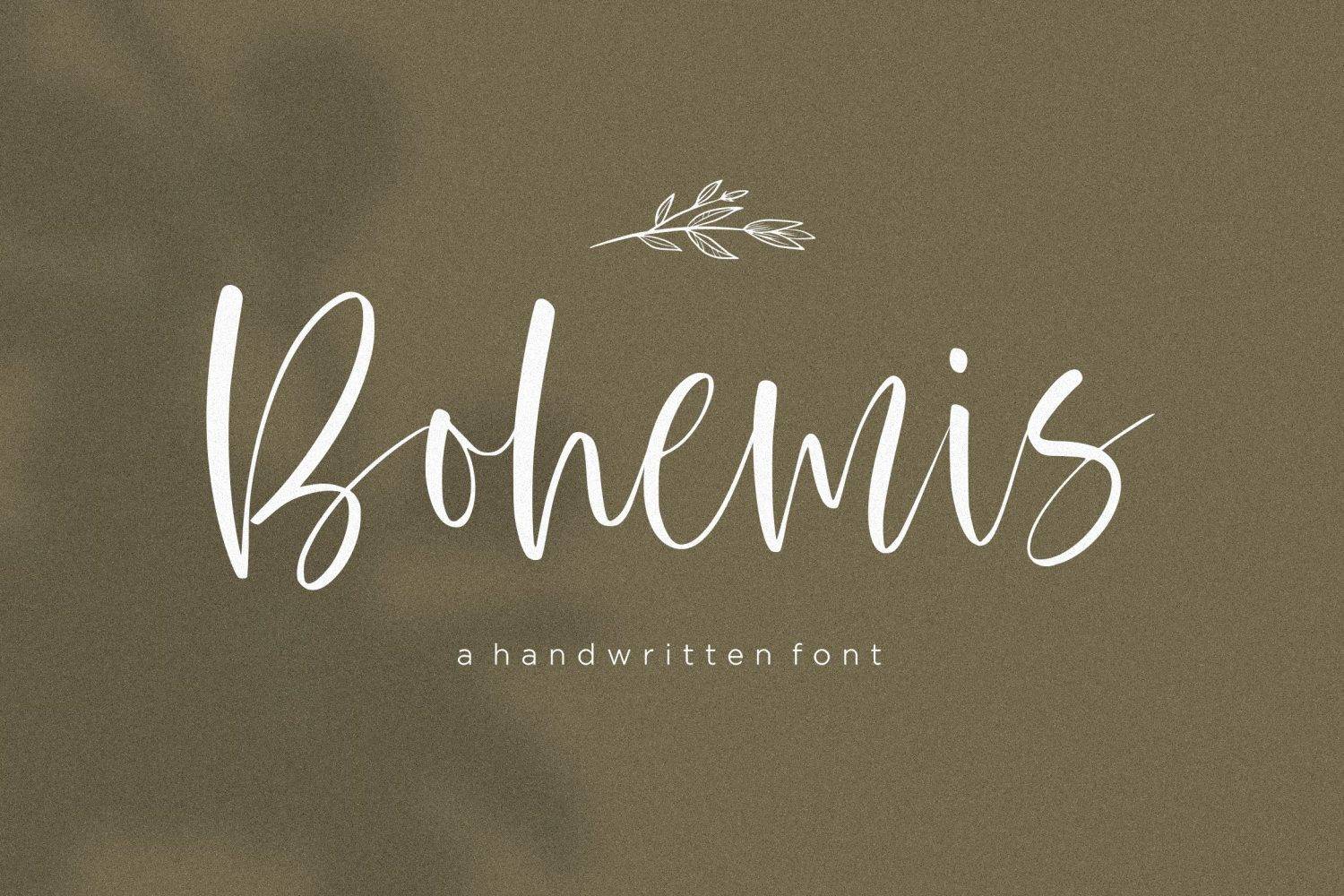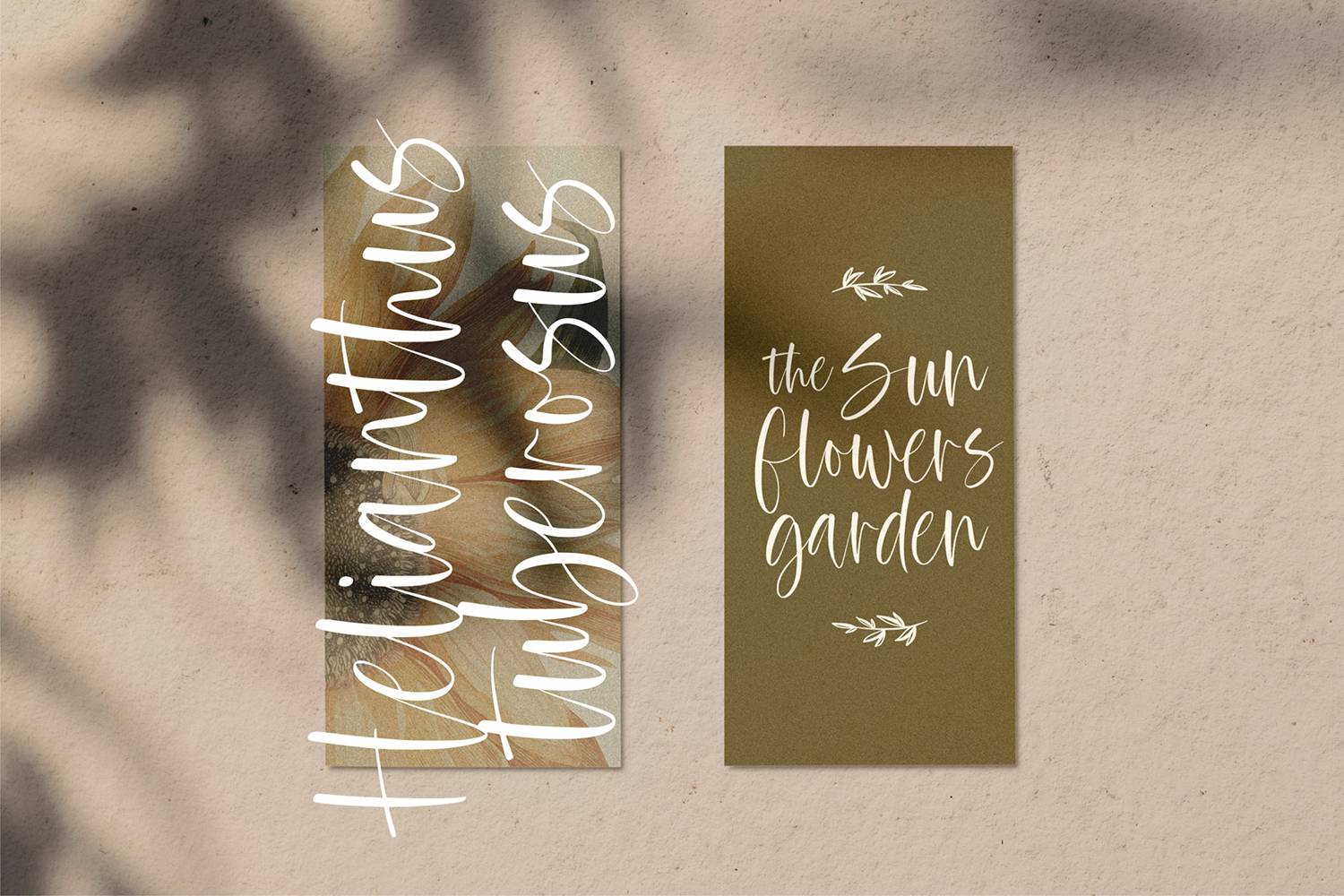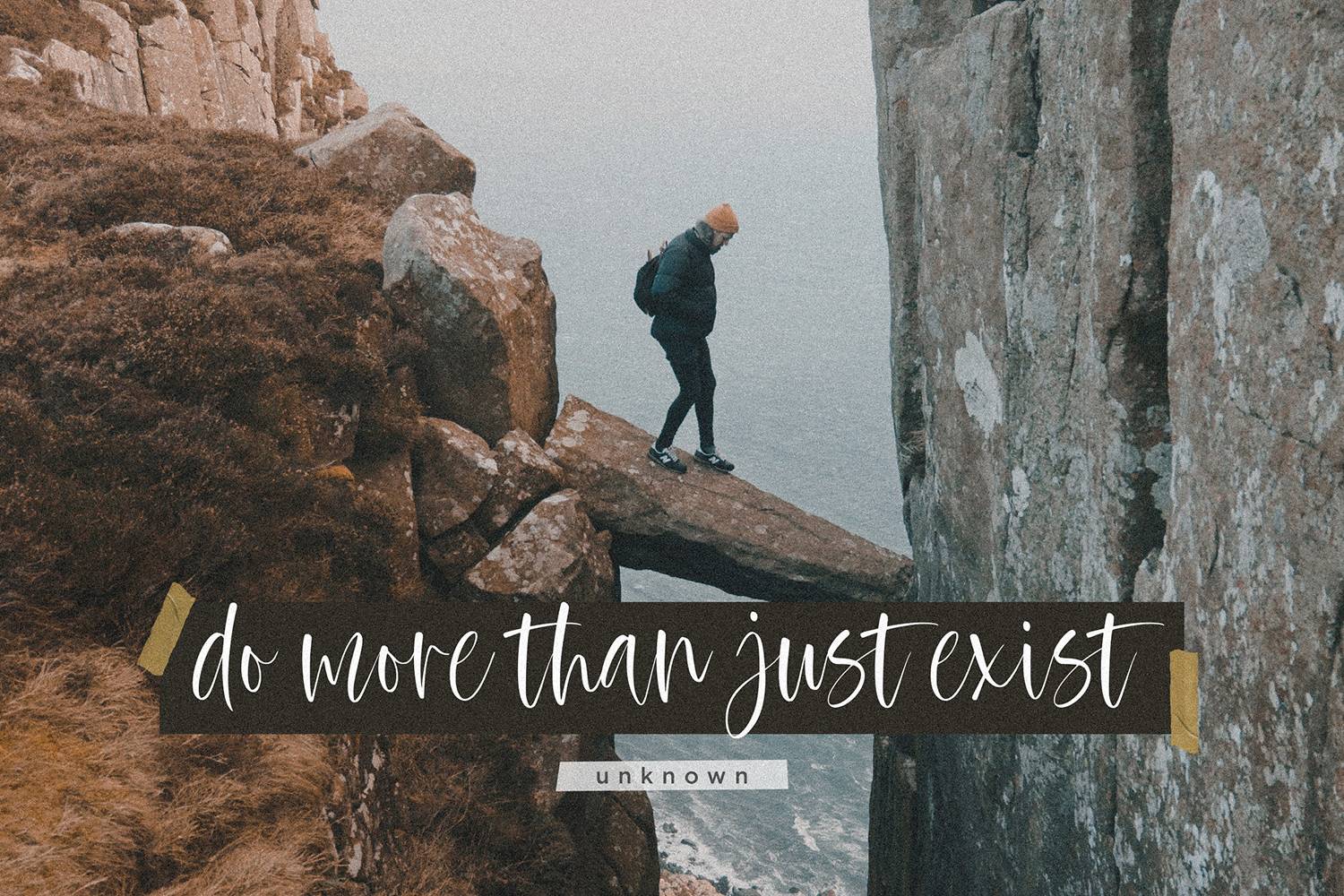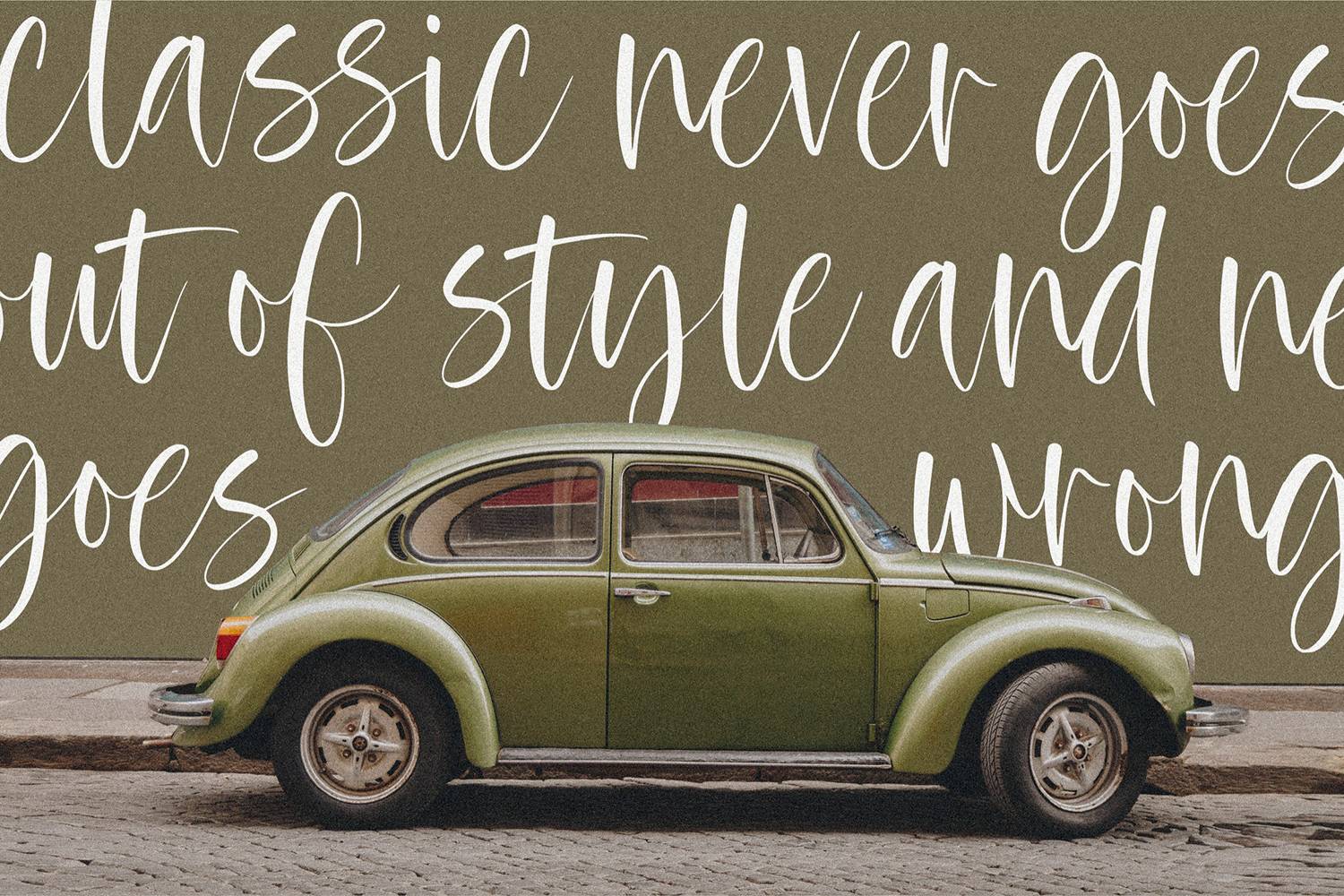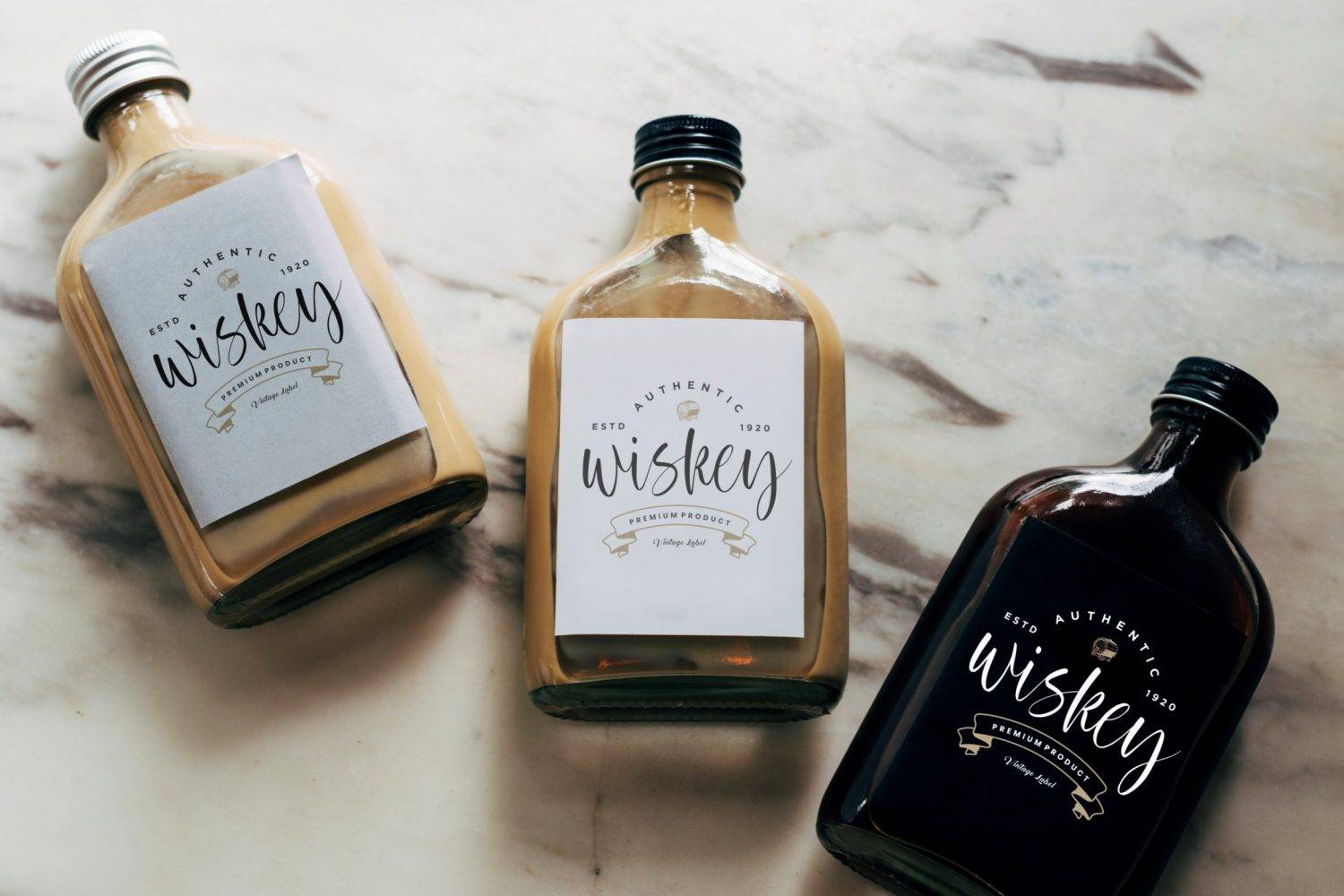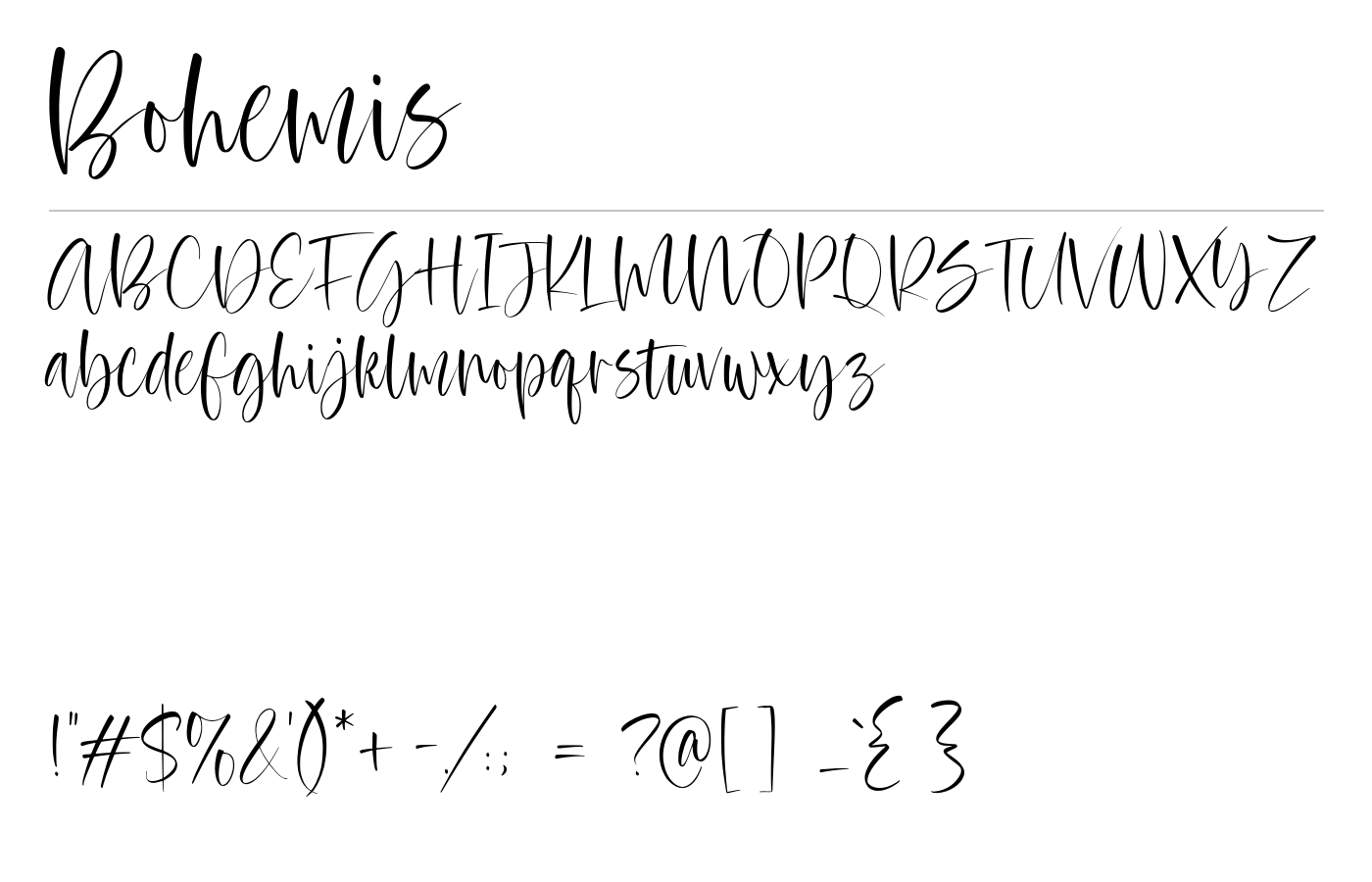
Bohemis is a delicate, modern script font with a natural, handwritten flair that feels both elegant and approachable. Its slender, flowing strokes and tall, airy letterforms make it ideal for creative and personal design projects such as invitations, branding, and editorial accents, where a touch of stylish, casual sophistication is desired. This font’s graceful yet relaxed style communicates warmth and creativity, perfect for fashion, lifestyle, and artistic uses.
Bohemis Font
About Bohemis Font
| Font family | Bohemis Font |